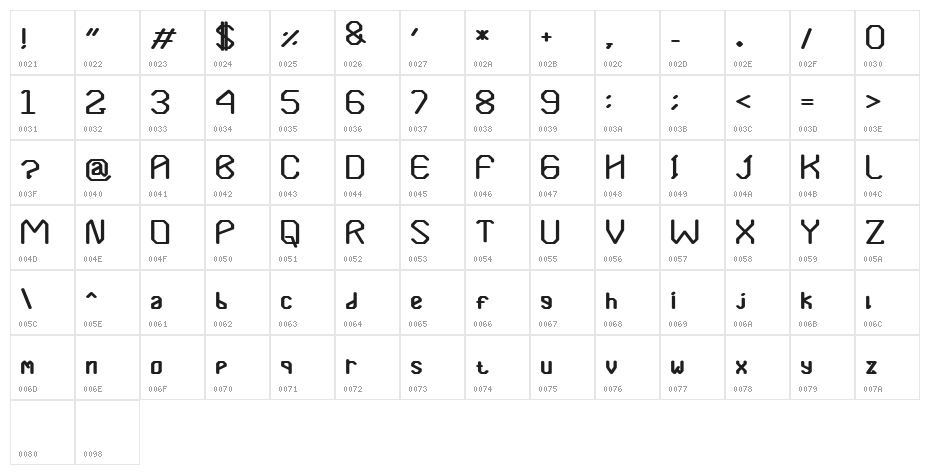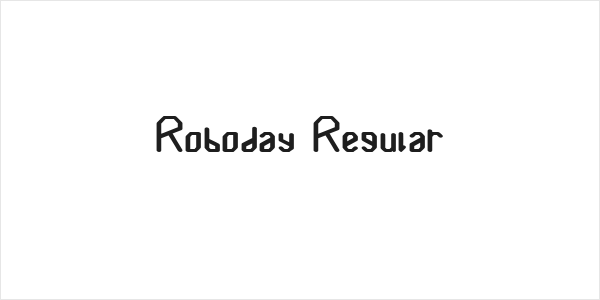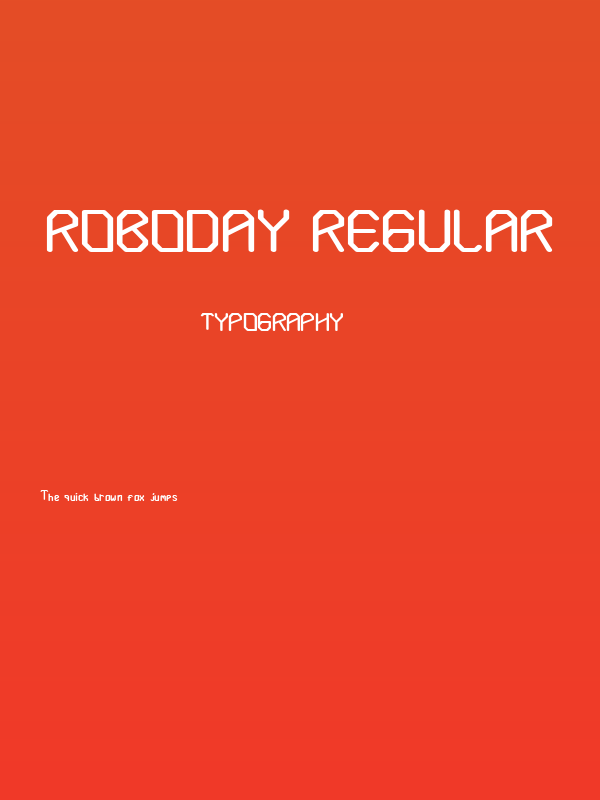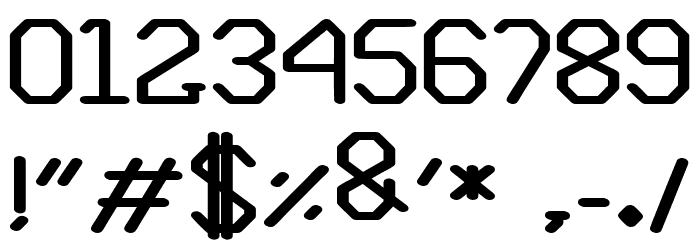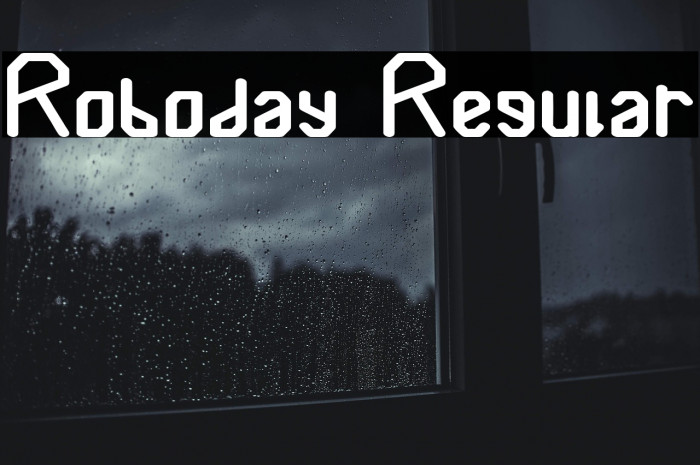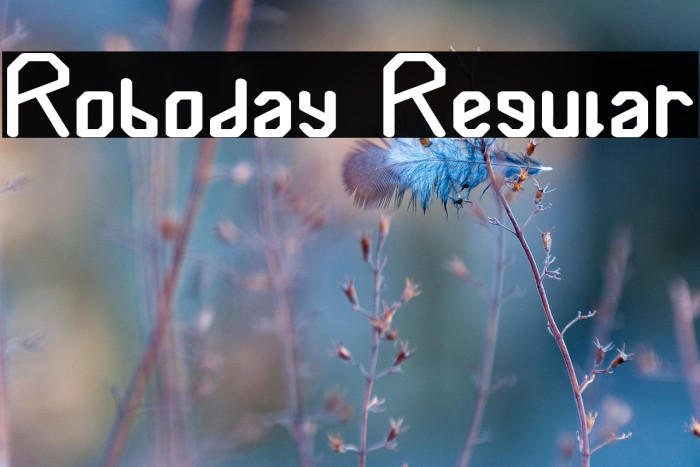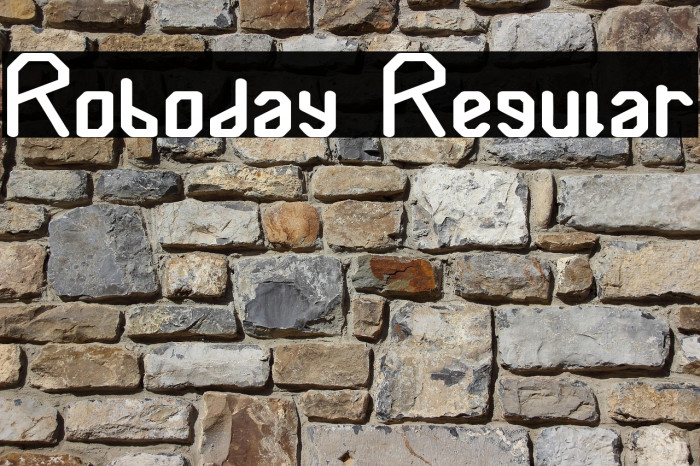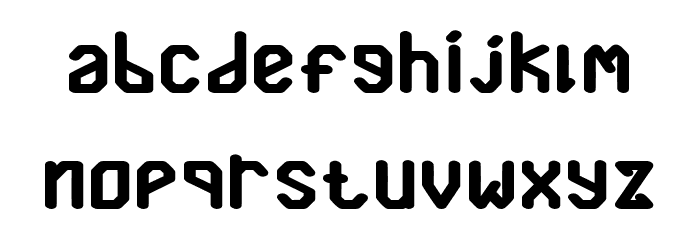
Roboday Regular Font
Roboday Regular Description
This font features a futuristic and geometric design, characterized by its angular and octagonal shapes. The letters are constructed with consistent line thickness, giving it a uniform and mechanical appearance. The uppercase and lowercase letters maintain a cohesive style, with the lowercase having a slightly more rounded form. Numbers and special characters follow the same design principles, ensuring a seamless integration across all characters. The overall look is modern and tech-inspired, making it suitable for digital and sci-fi themed projects.
| Proposed Projects | Ideal for tech branding, sci-fi movie posters, video game titles, and digital interfaces. |